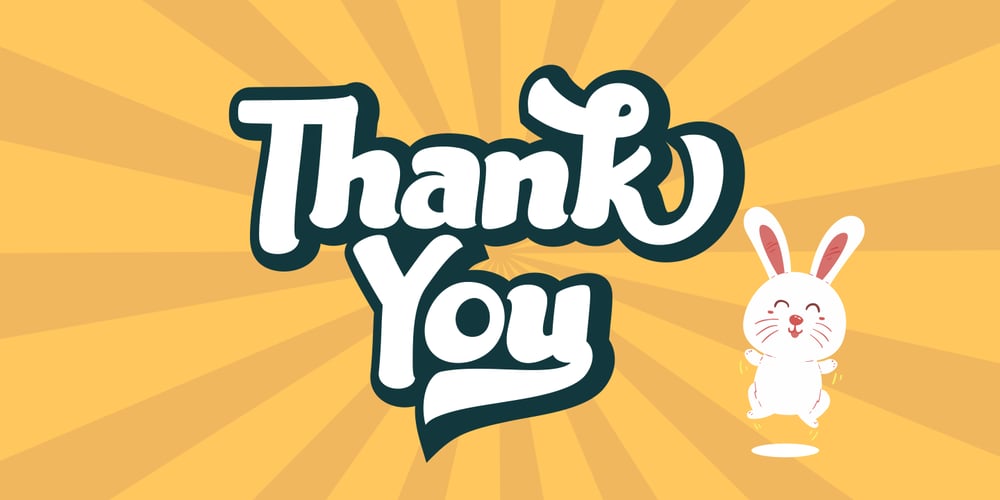
Mama Bunny
Mama Bunny font
Mama Bunny Font Family was designed by Dian Haniffan Hadi and published by Beary. Mama Bunny contains 1 styles and family package options. Mama Bunny was inspired by a playful style in combination with Hand Lettering. Every single letters have been carefully crafted to make your text looks beautiful. I hope this can inspire you for your work. Font is PUA encoded so you can access the extras from the character map in most design software. Files Include : Alternate Stylistic Character Multilanguage Support PUA Encoded To enable the OpenType Stylistic alternates, you need a program that supports OpenType features such as Adobe Illustrator CS, Adobe Indesign & CorelDraw. There are additional ways to access alternates, using Character Map (Windows), Nexus Font (Windows), Font Book (Mac) or a software program such as PopChar (for Windows and Mac). Happy Creating!